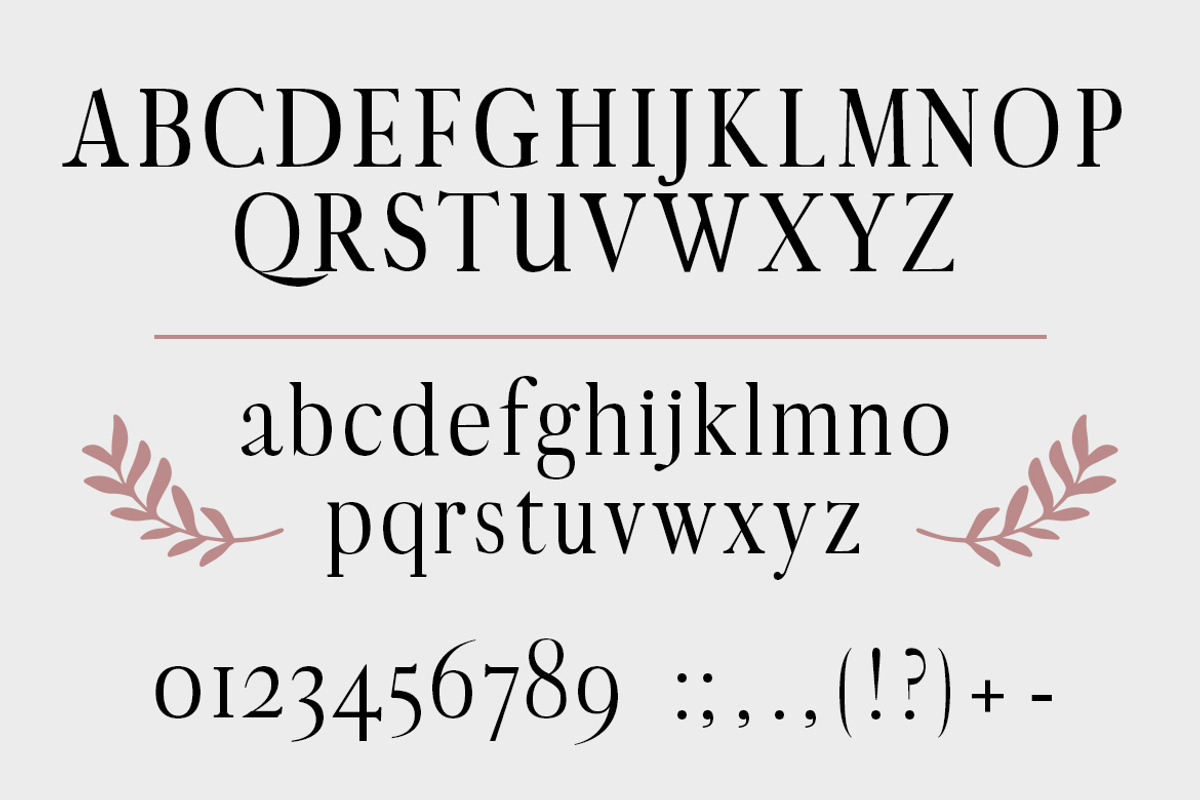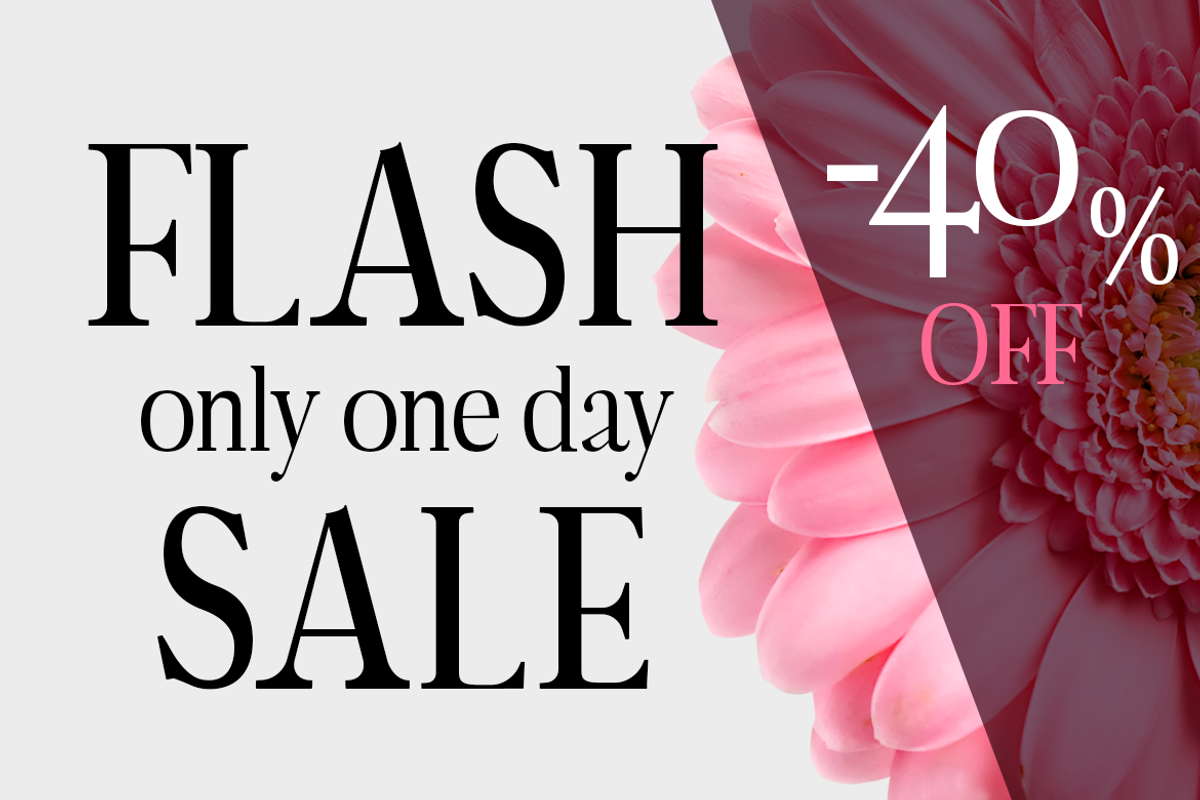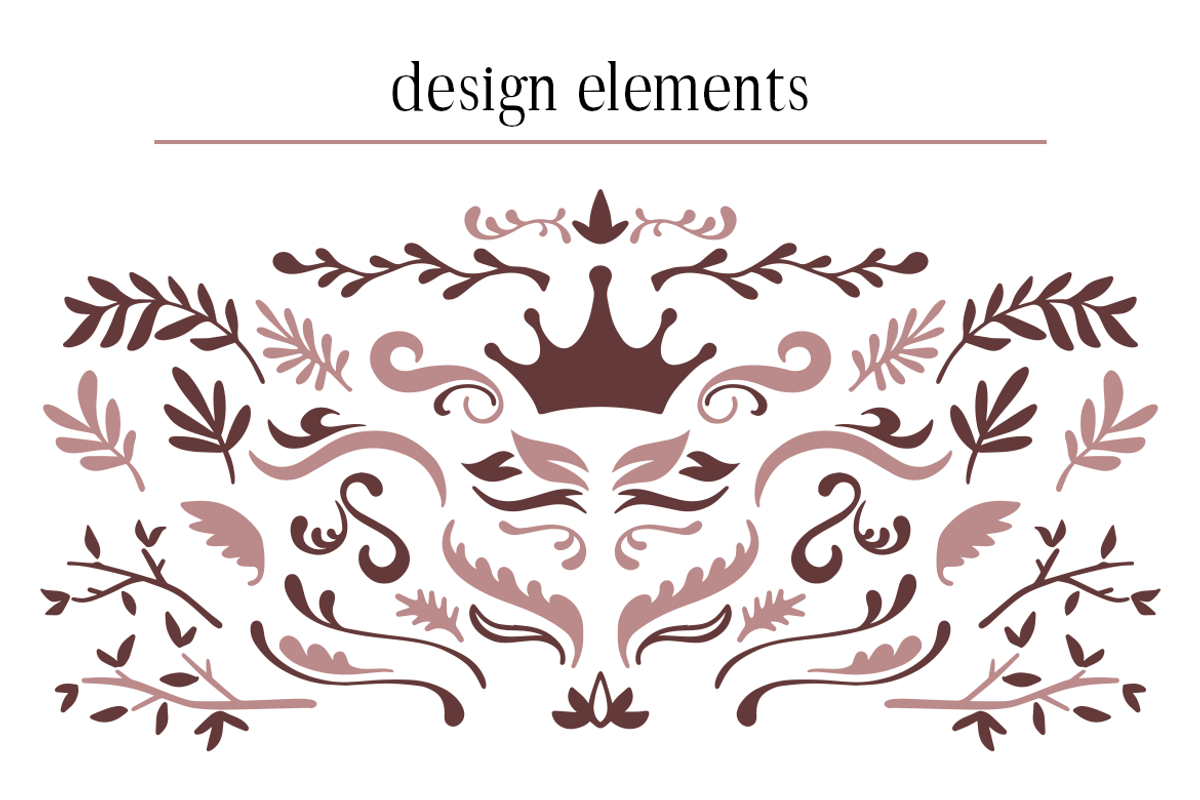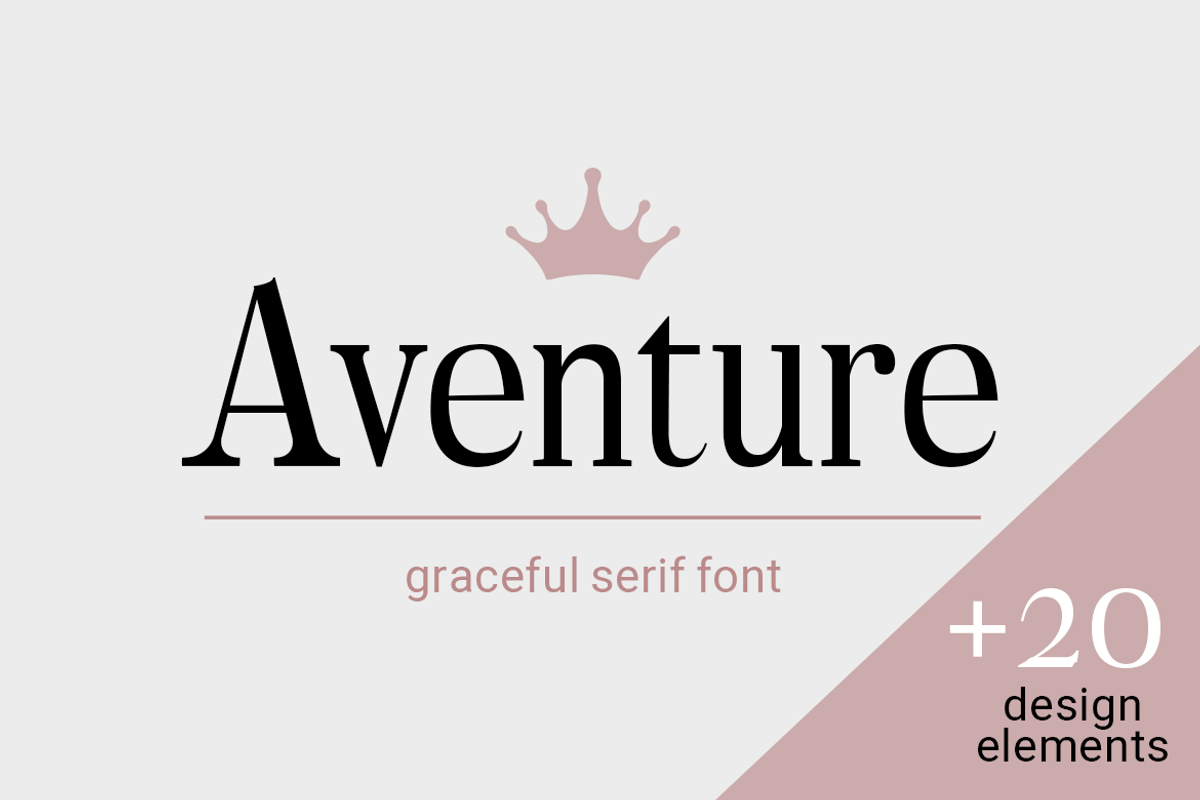
Aventure| graceful serif font
Aventure is a strong and elegant serif font. Beautiful and stylish, it is the perfect font for successful headers. The font is supplemented with decorative elements for more convenient design creation.
Why Aventure| graceful serif font is worth a look
Aventure| graceful serif font by wowomnom fits naturally into Branding, posters, packaging, typography.